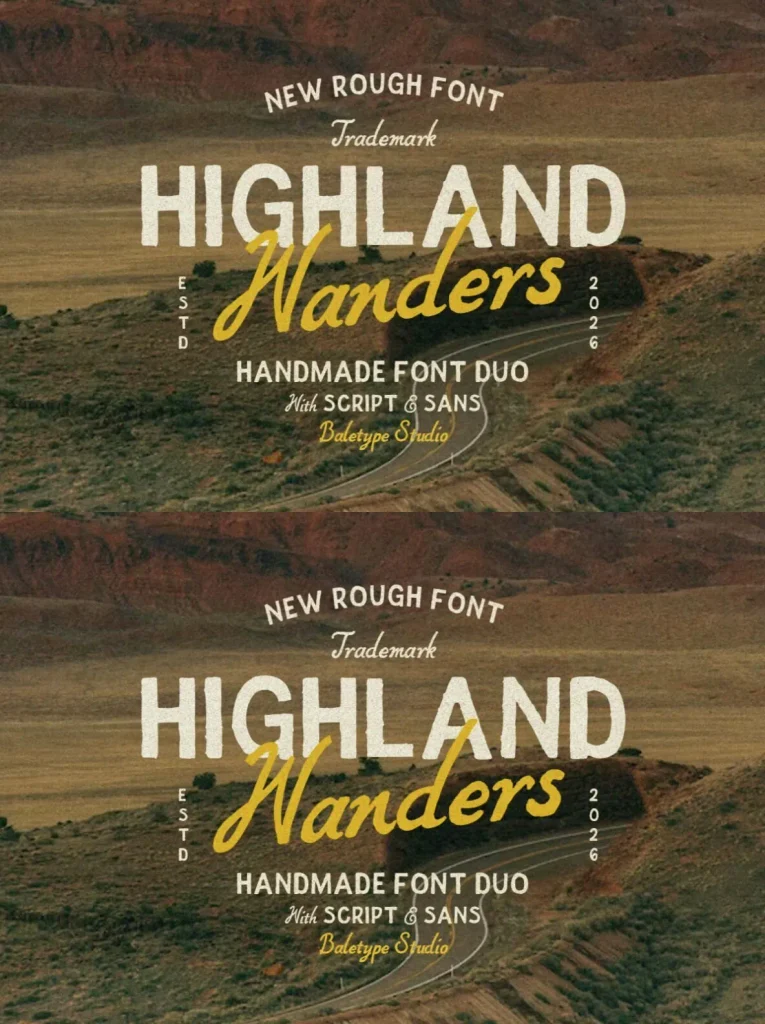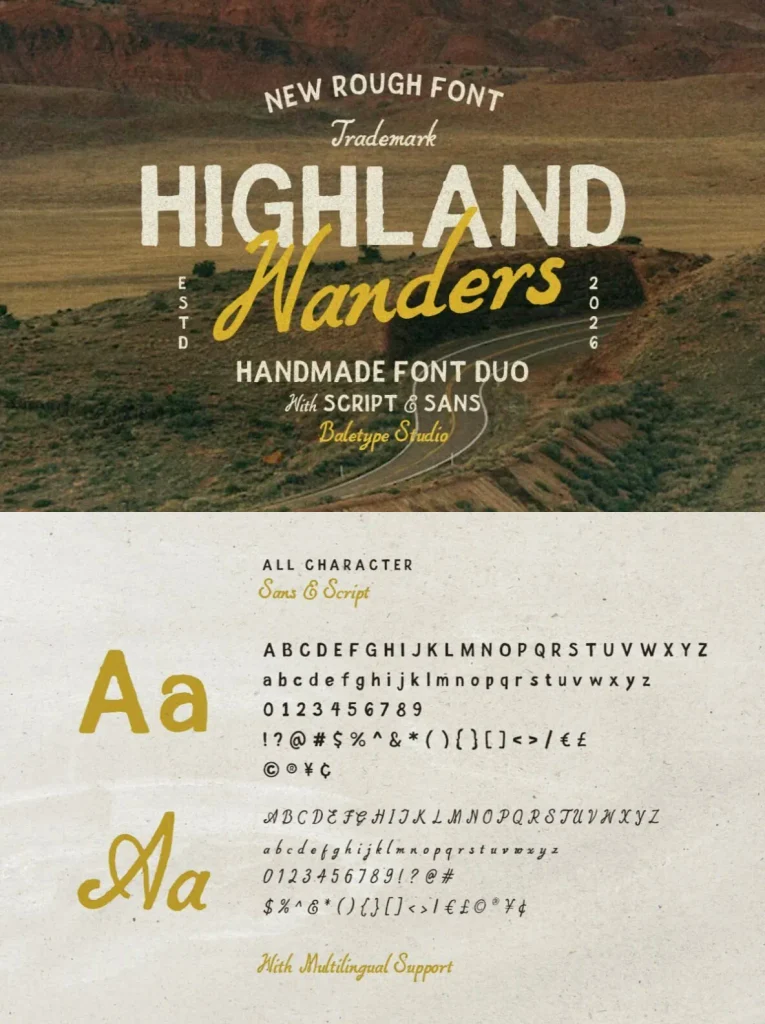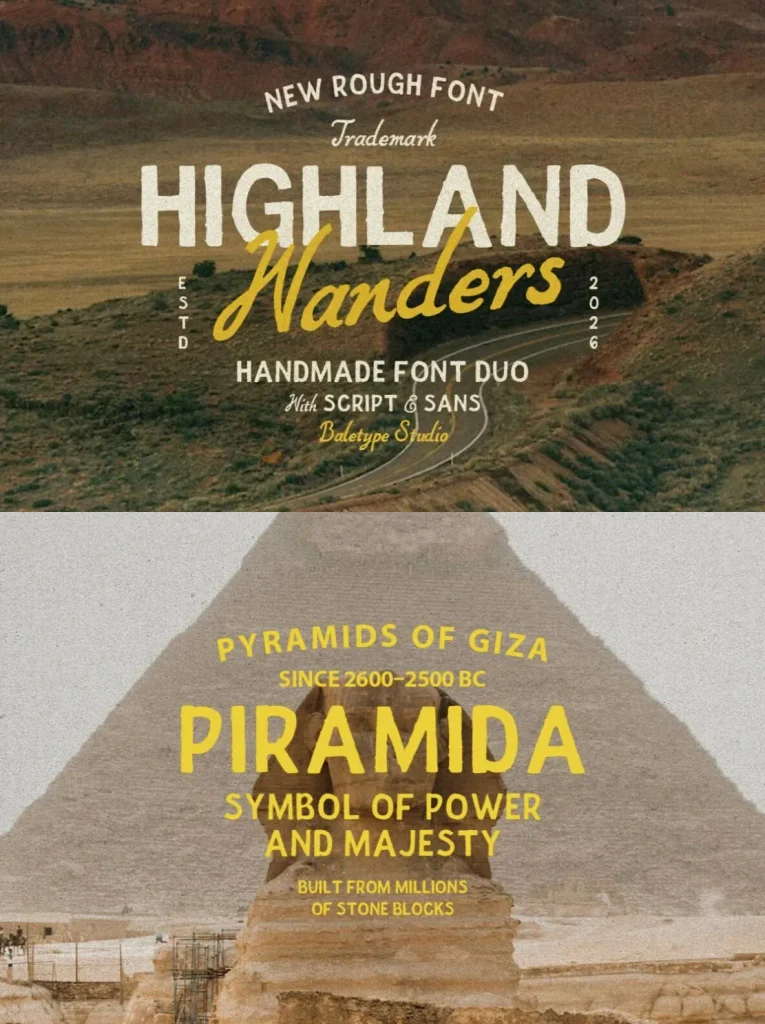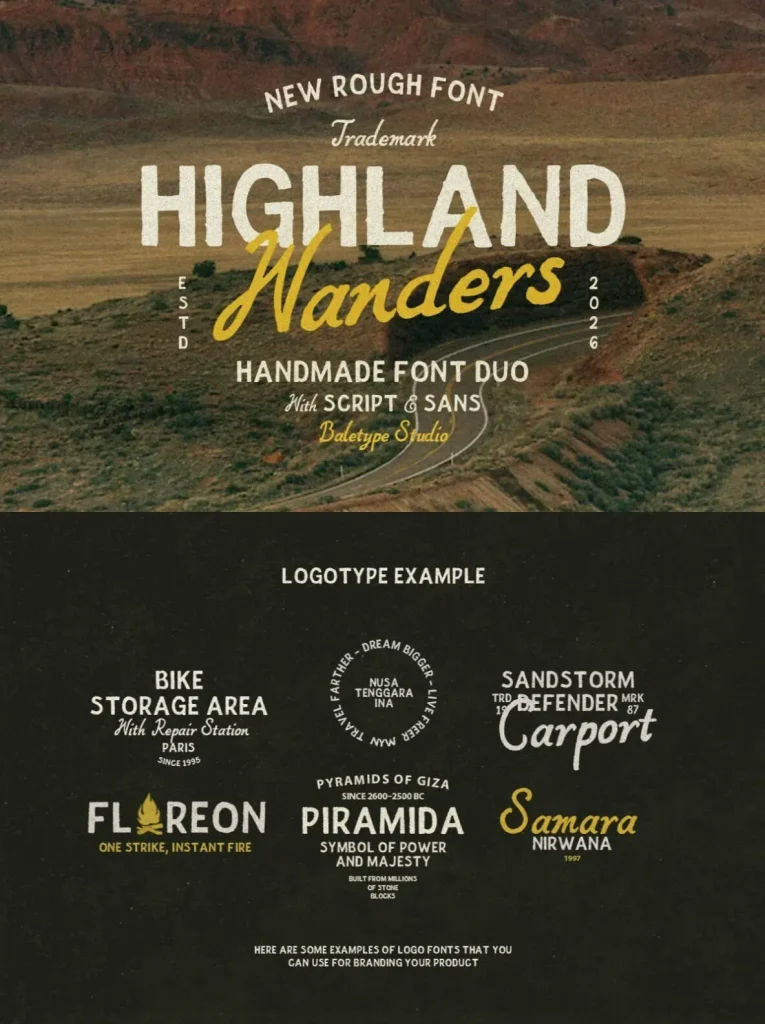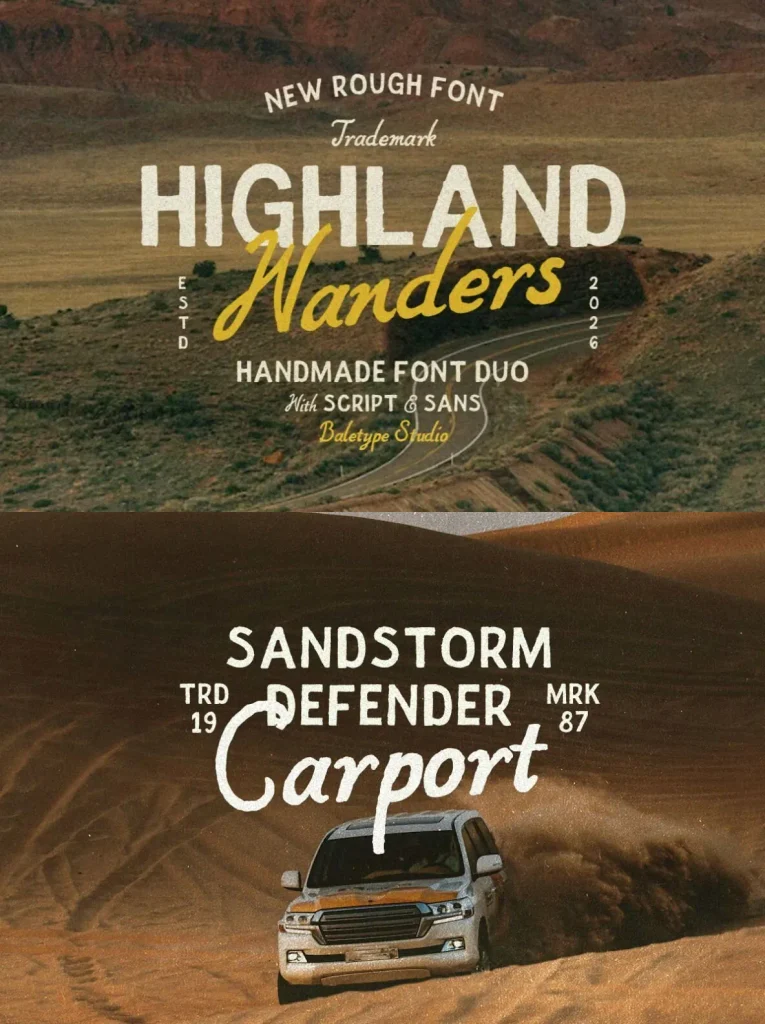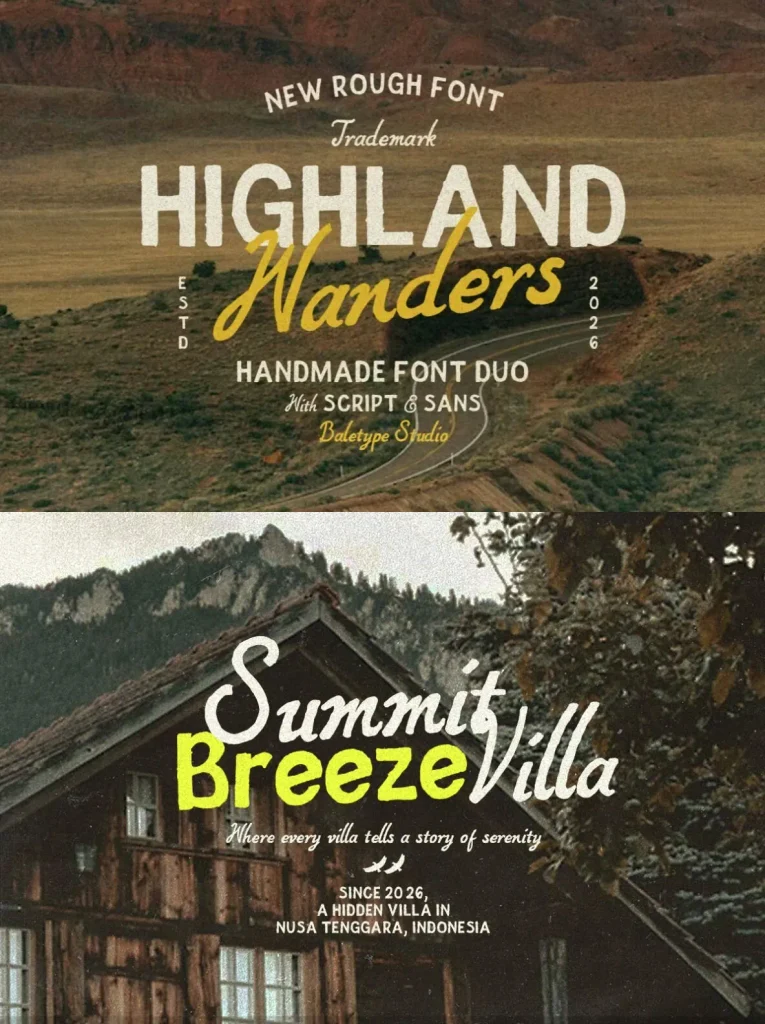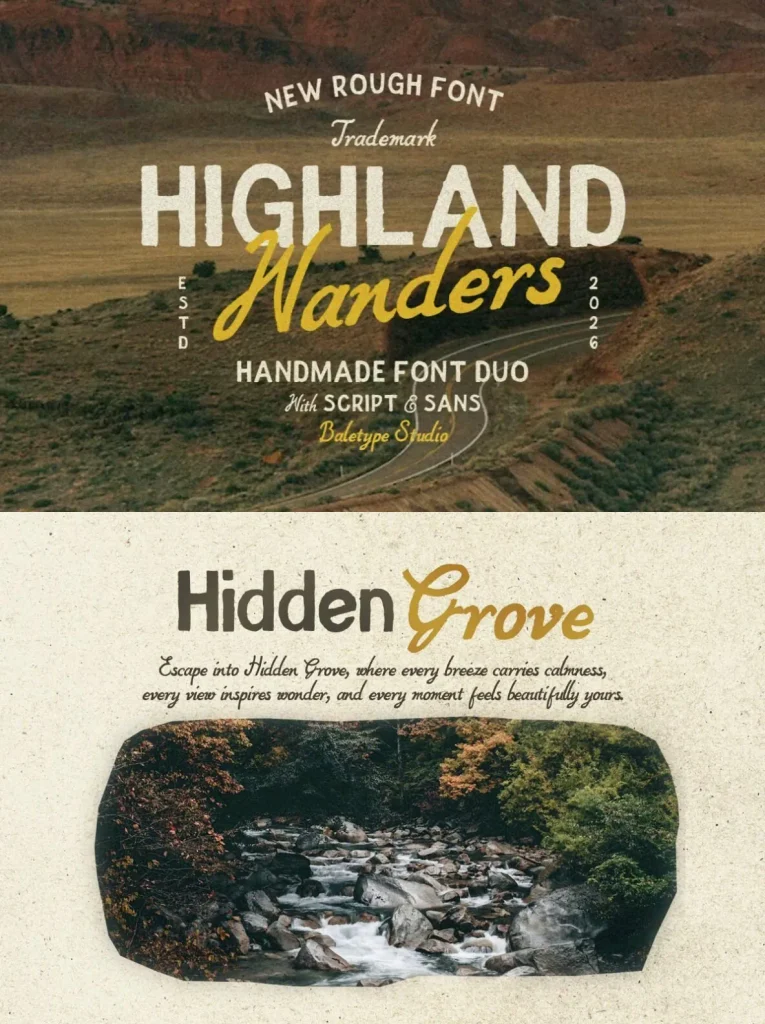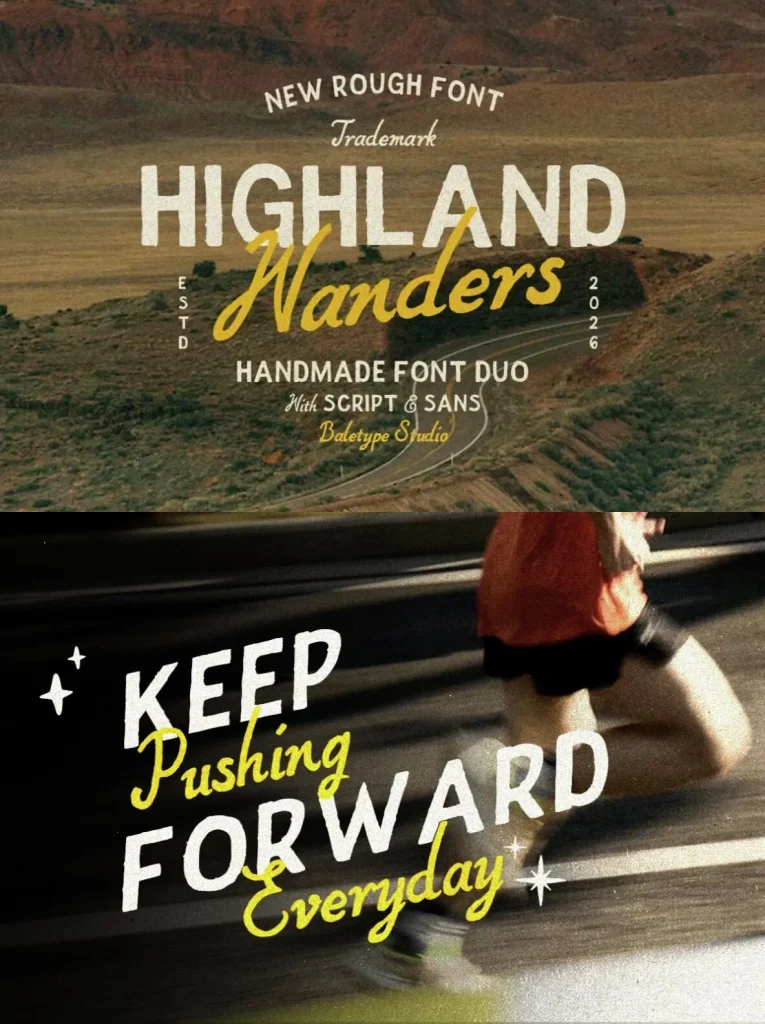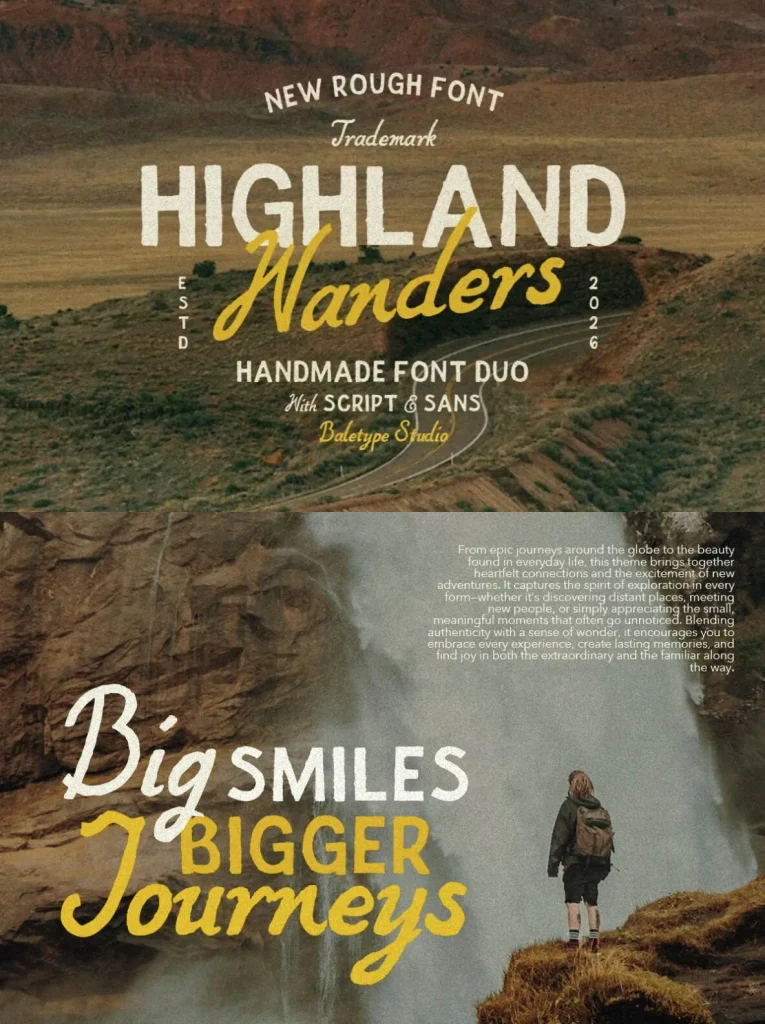
Highland Wanders Font
Highland Wanders — Hand-Drawn Outdoor Charm
Highland Wanders is a rough hand-drawn font duo with a natural handmade feel. It comes with a simple sans and an italic script designed to complement each other, giving designers a flexible pairing for expressive typography.
Use Highland Wanders for posters, outdoor project design, handmade greeting cards, quotes, logotypes, and branding that needs a handmade touch. The font also supports multiple languages, making it a practical choice for warm, personal visual identities with a crafted character.